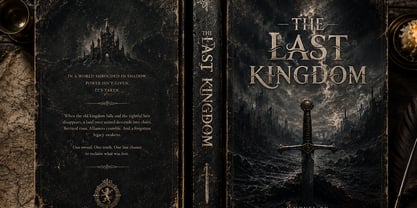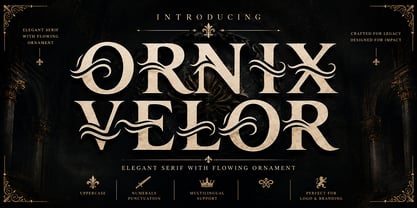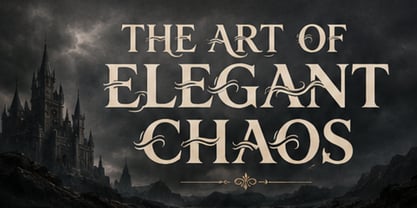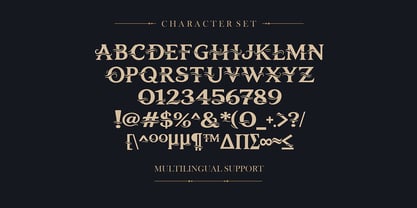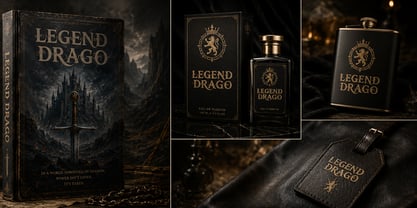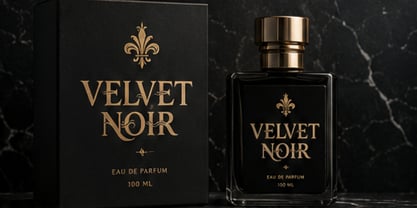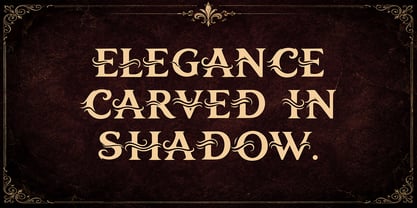
Ornix Velor
Ornix Velor is a luxury elegant serif display typeface inspired by timeless European typography, classical architecture, heritage branding, and refined editorial design. Combining strong serif construction with graceful flowing ornaments, Ornix Velor creates sophisticated typography that feels prestigious, artistic, and memorable.
Every character is carefully proportioned to achieve visual harmony while introducing decorative flowing swashes that elevate each headline into an expressive design element. Rather than functioning as simple embellishments, the ornaments become an integral part of the typography, adding movement, elegance, and distinctive personality.
The font includes uppercase characters, numerals, punctuation, and multilingual support, providing designers with a versatile tool suitable for international branding projects. The refined serif forms maintain excellent readability while delivering premium visual impact.
Ornix Velor is designed for luxury branding, editorial publishing, premium packaging, cosmetic products, jewelry brands, perfume collections, restaurants, wine labels, hotels, invitation suites, wedding stationery, fashion campaigns, boutique identities, architecture firms, interior studios, premium cafes, certificates, book covers, museum exhibitions, and artistic logo design.
One of the defining characteristics of Ornix Velor is its flowing ornament system. Elegant swashes naturally extend from selected characters, producing graceful visual movement without disrupting overall balance. These details create typography that feels handcrafted and luxurious while remaining clean and professional.
Large display applications reveal the beauty of every serif and ornamental curve. Magazine covers, fashion editorials, premium advertisements, luxury catalogues, and high-end branding materials immediately benefit from the font's sophisticated personality.
Digital designers will also appreciate Ornix Velor for hero sections, landing pages, website headers, online portfolios, ecommerce branding, premium presentations, and digital campaigns. The elegant letterforms create strong first impressions while maintaining excellent readability across modern screens.
From a branding perspective, Ornix Velor communicates craftsmanship, exclusivity, heritage, confidence, and timeless sophistication. It is particularly effective for companies seeking an upscale identity without relying on excessive decoration.
Its balanced serif construction allows seamless pairing with modern sans serif fonts, creating refined typography systems suitable for both print and digital environments.
Built with clean vector outlines, Ornix Velor ensures exceptional rendering quality in both large-scale printing and high-resolution displays. Every serif, curve, and ornament retains its sharp appearance regardless of output size.
Rather than following short-lived design trends, Ornix Velor embraces enduring elegance. The classical inspiration combined with contemporary precision makes it suitable for designers who want typography that remains relevant for years to come.
Whether used for prestigious logos, luxury packaging, elegant invitations, editorial publishing, premium websites, or sophisticated advertising, Ornix Velor offers timeless beauty and exceptional visual authority.